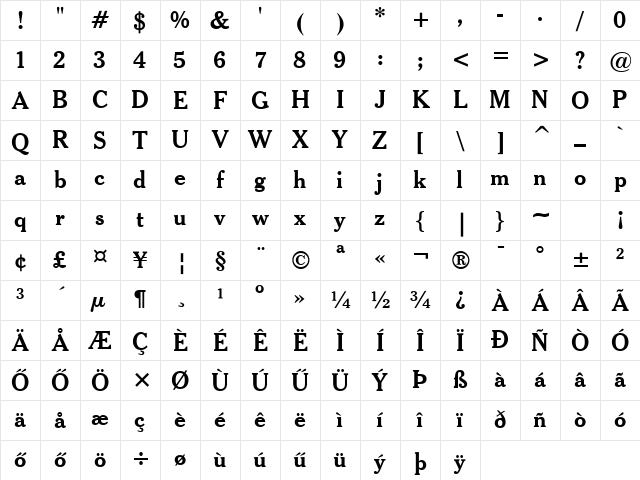
Cheltenham HdHU Bold Headline Free Font
Cheltenham HdHU Bold Headline
Style: Bold Headline
Cheltenham HdHU Family
Design Context for Cheltenham HdHU
Cheltenham HdHU is a composed and adaptable typeface that performs quietly and consistently across a wide range of design contexts. Its bold stroke weight gives it real presence on the page.